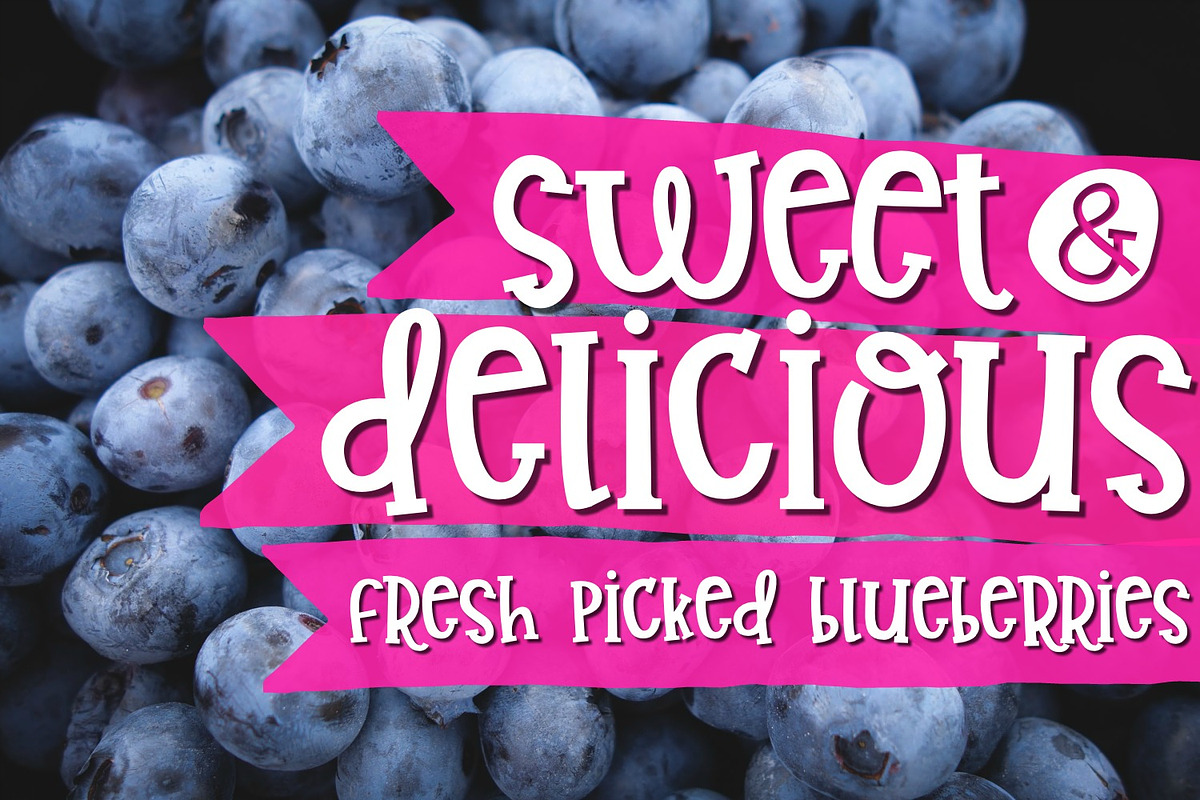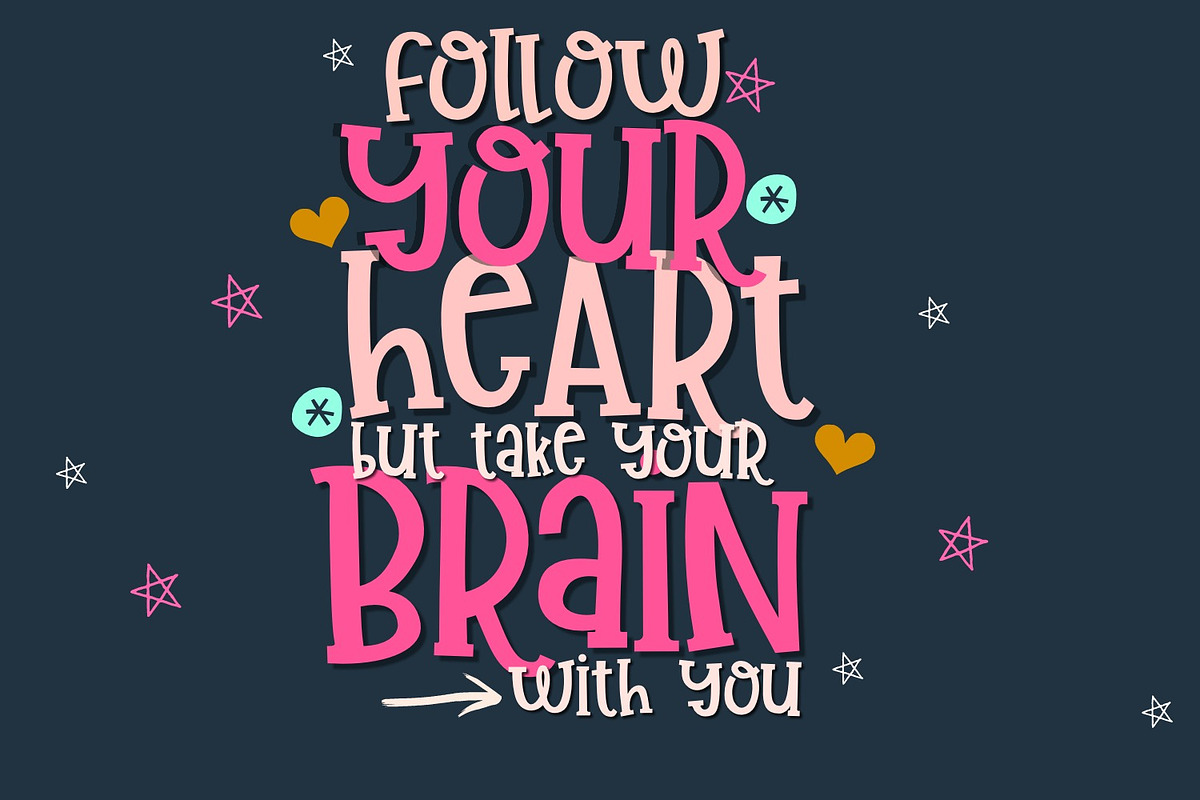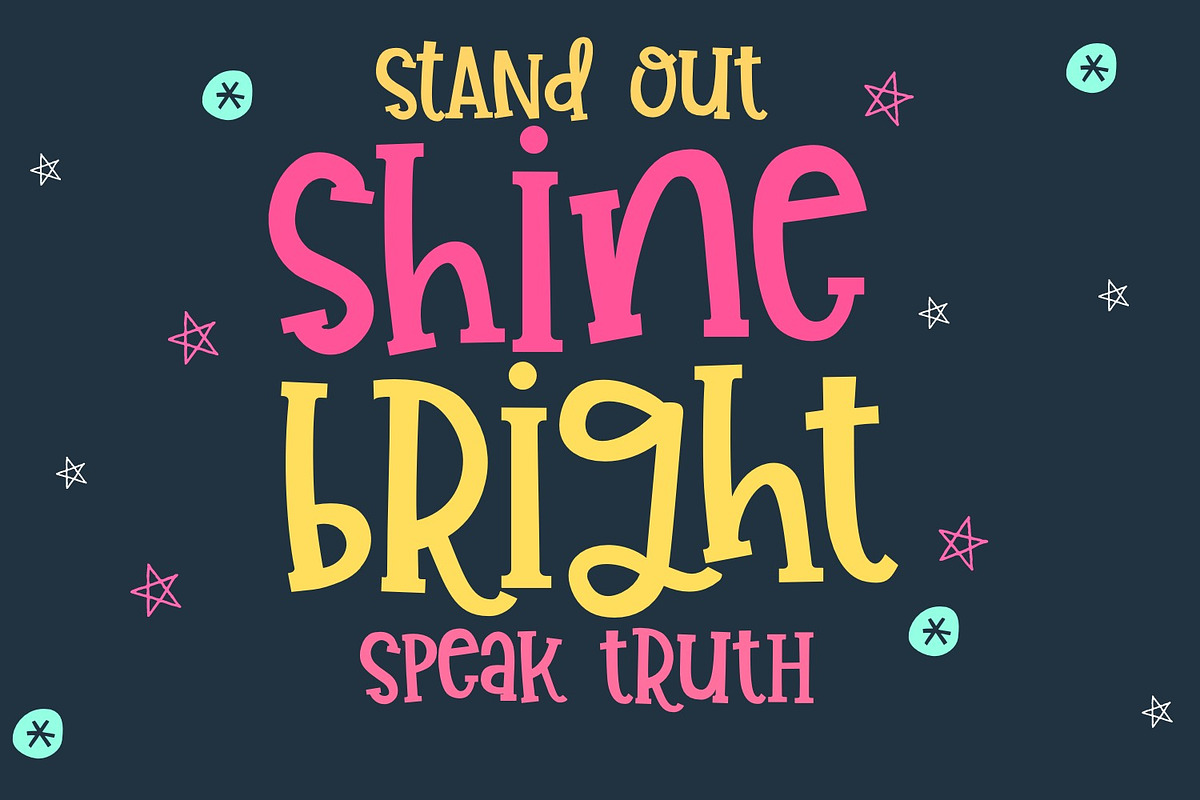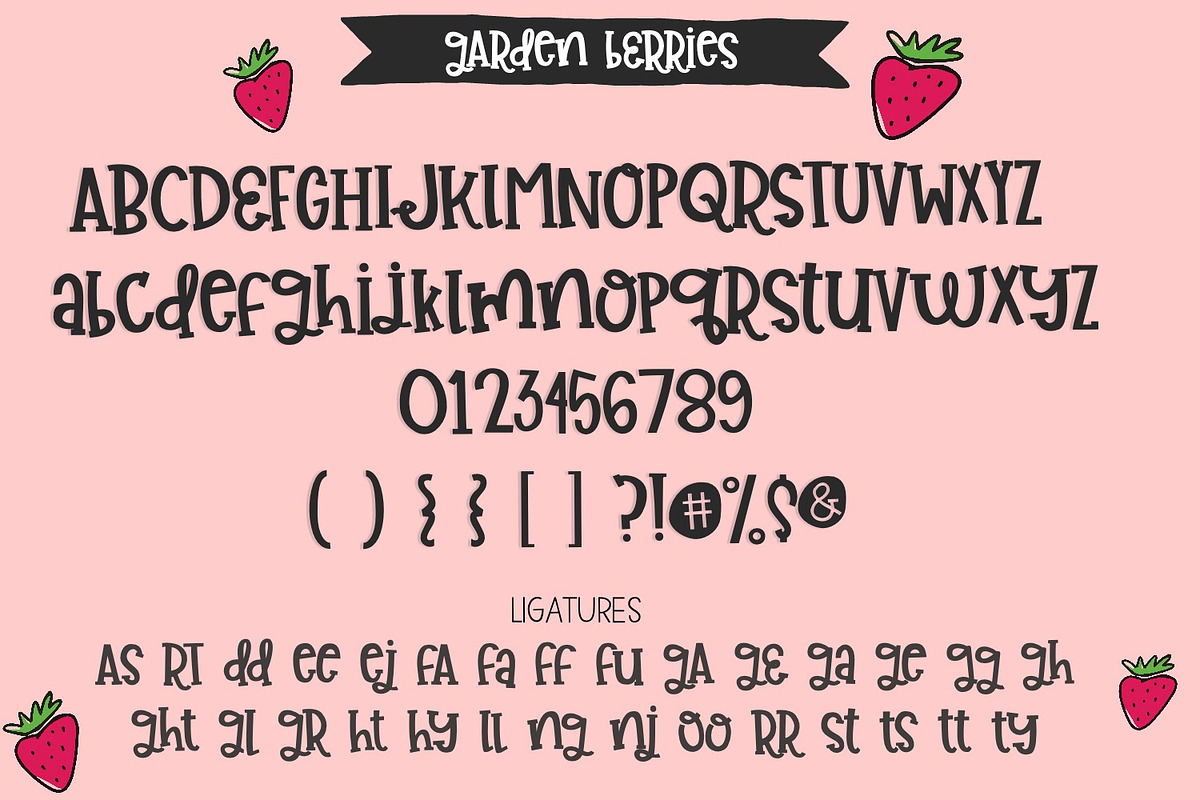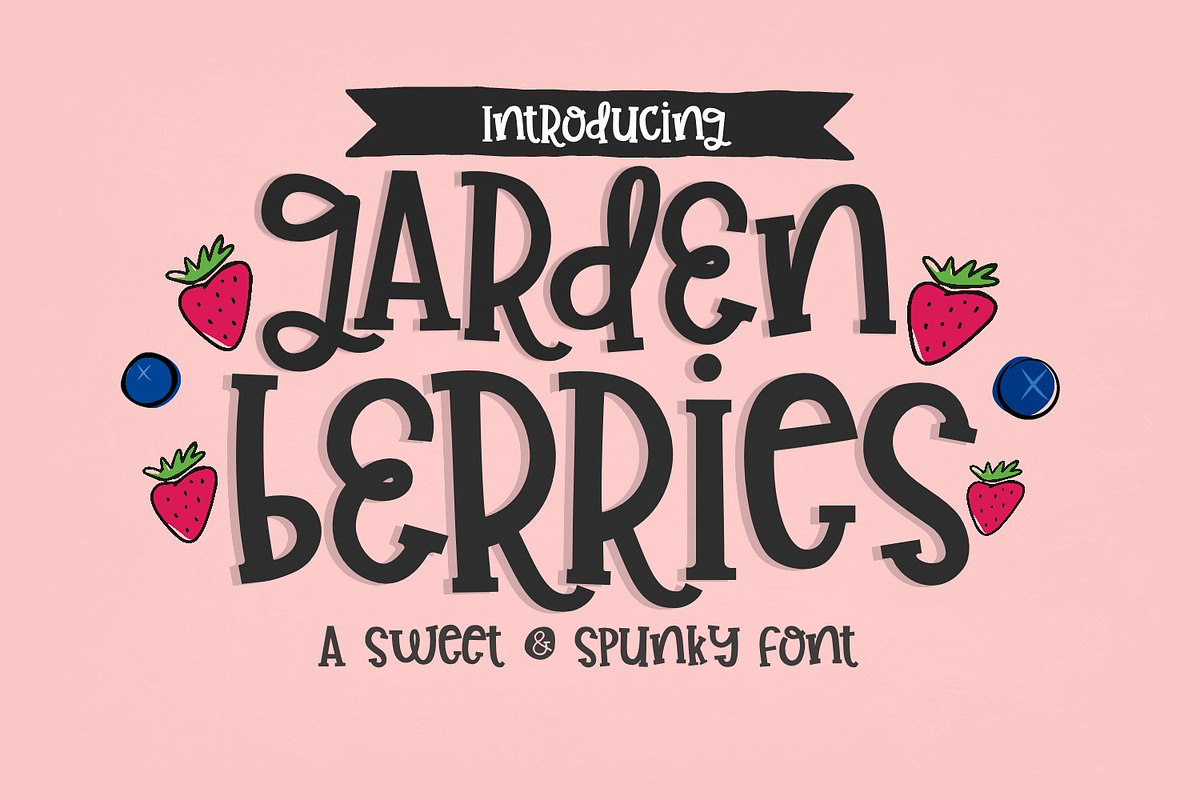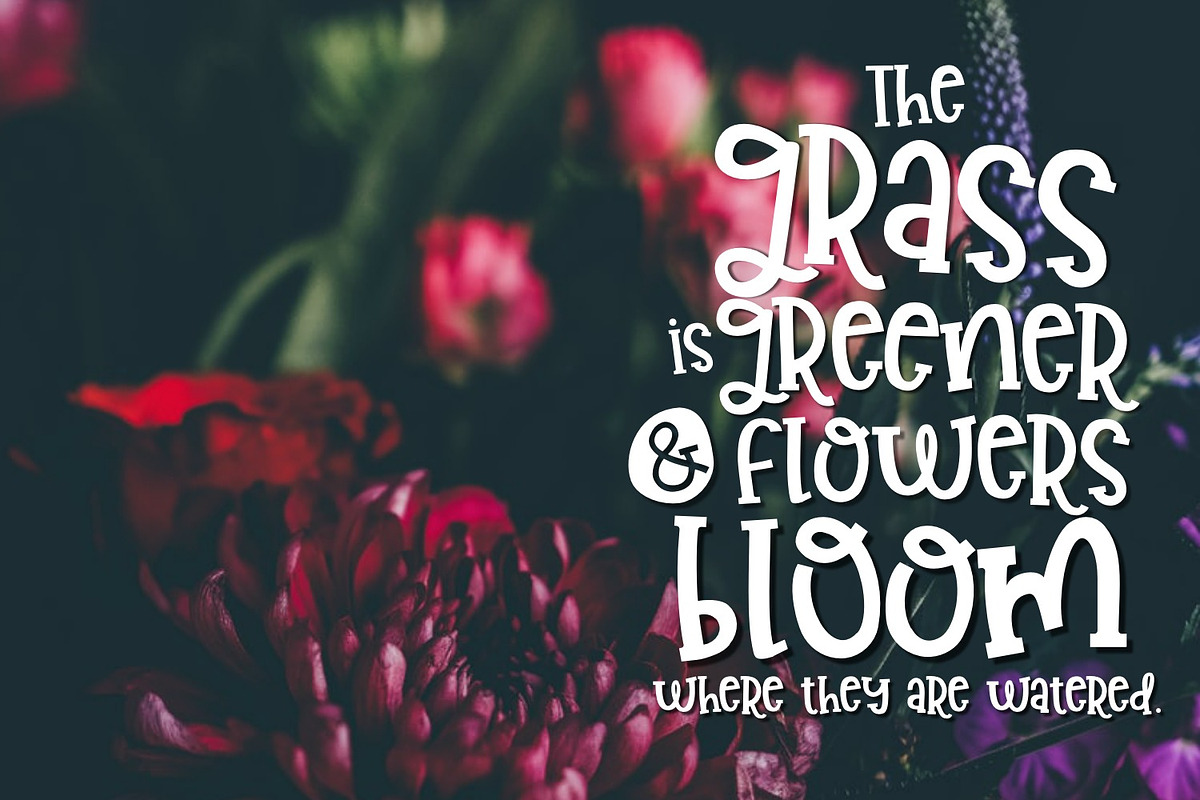
Garden Berries Handwritten Font
Meet Garden Berries! This mixed case serif font is bouncy, charming and perfect for many design projects! I've made this font as smooth as possible, reducing the amount of nodes in each glyph to ensure optimal cutting with Cricut, Silhouette or other craft machines.